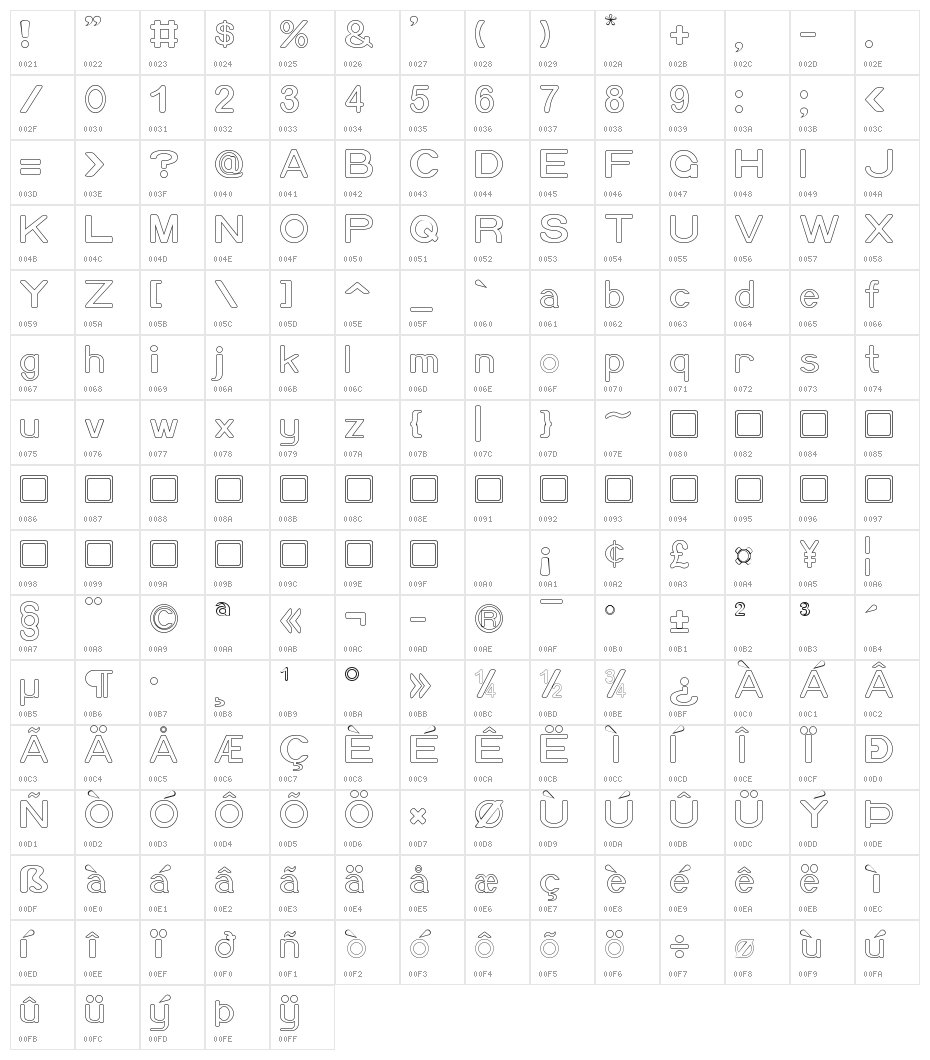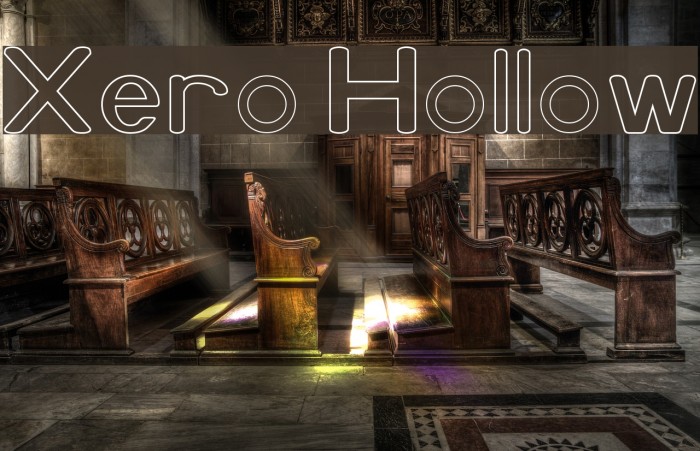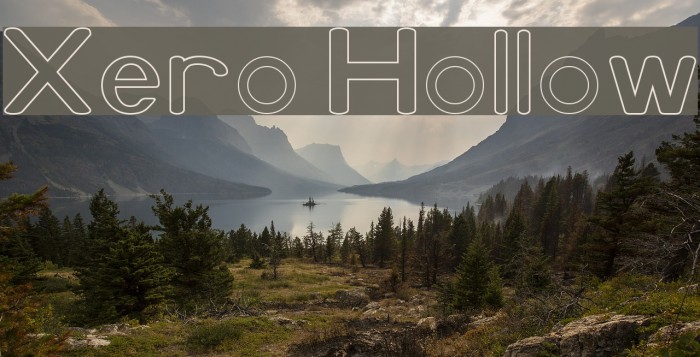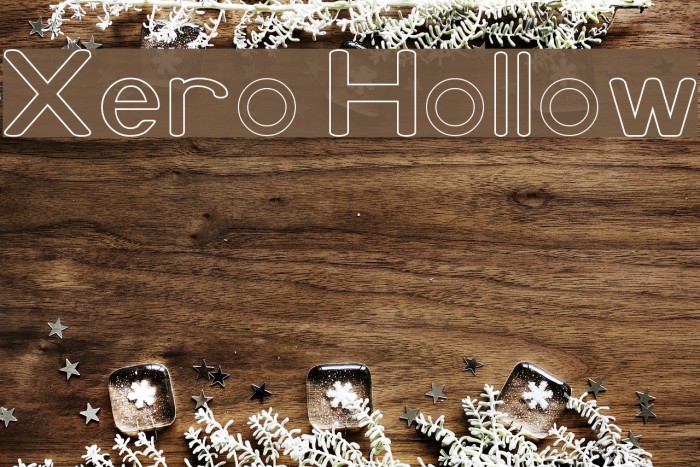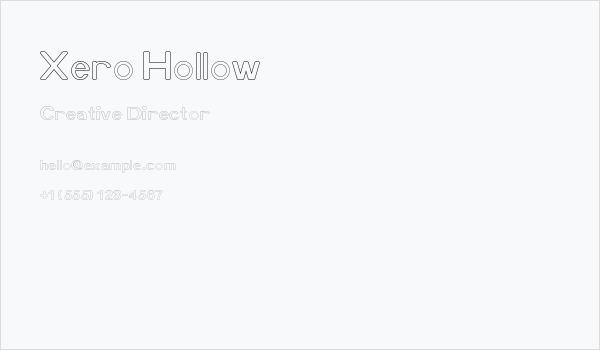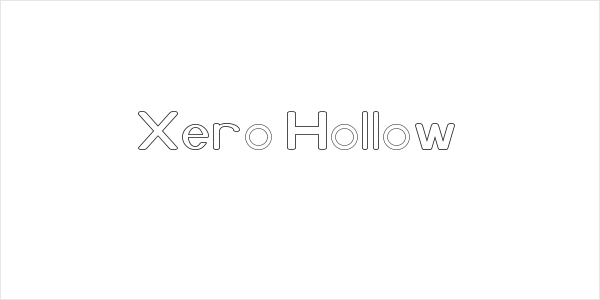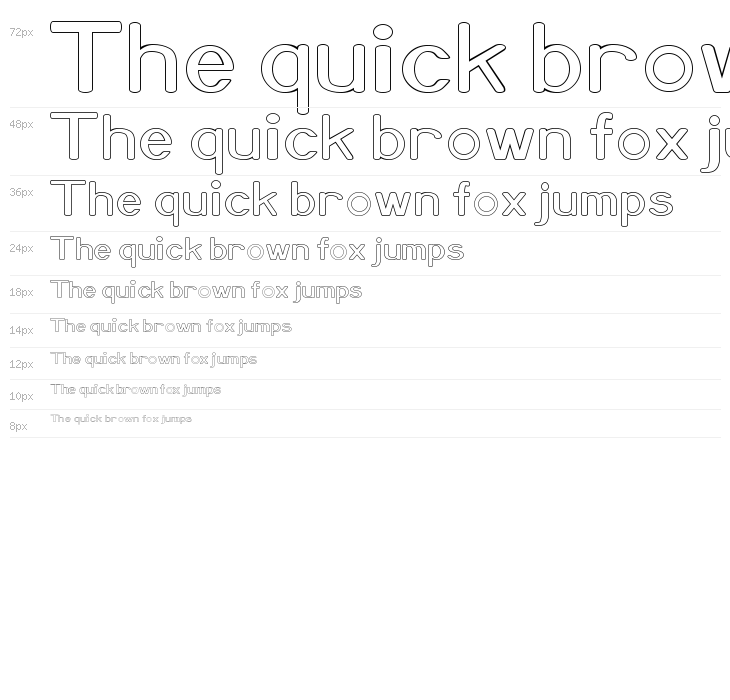
Xero Hollow Font
Xero Hollow Description
This font features a hollow, outlined style that gives it a modern and airy appearance. The characters are sans-serif, with clean and smooth lines that create a sense of openness and clarity. The uppercase and lowercase letters maintain a consistent width, contributing to a balanced and harmonious look. The numerals and special characters follow the same design principles, ensuring uniformity across all glyphs. This font's unique hollow design makes it stand out, offering a fresh and contemporary feel suitable for various creative applications.
Proposed ProjectsIdeal for branding, posters, headlines, and digital media where a modern and distinctive look is desired.